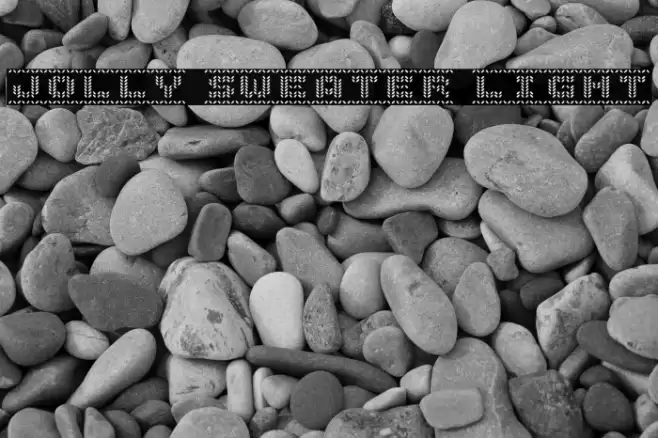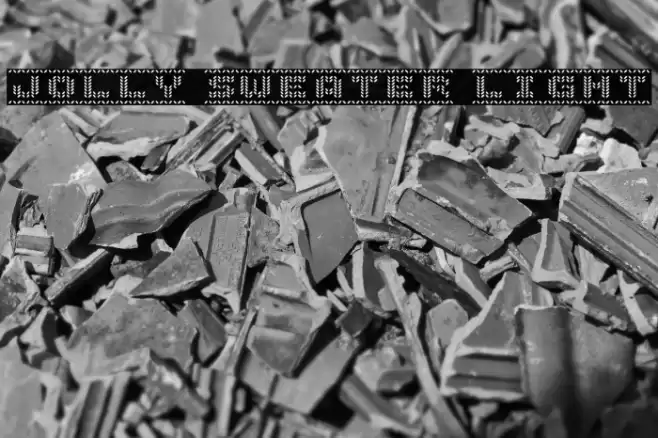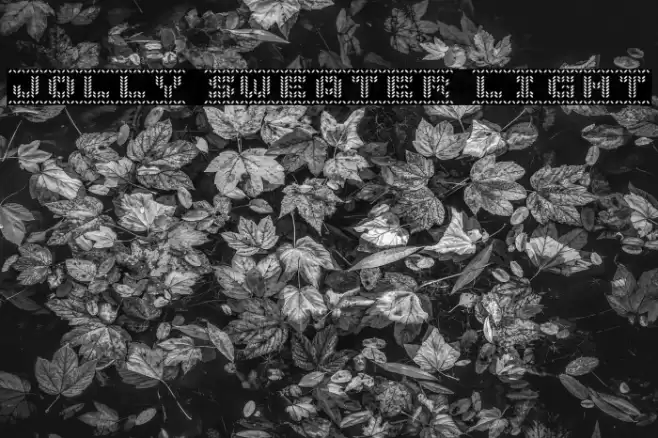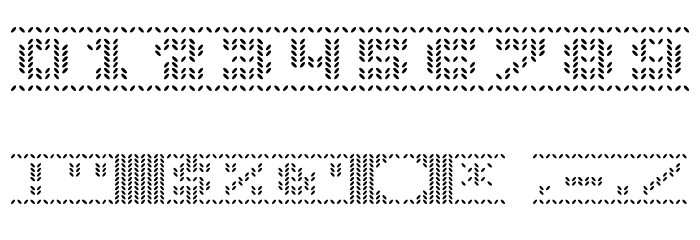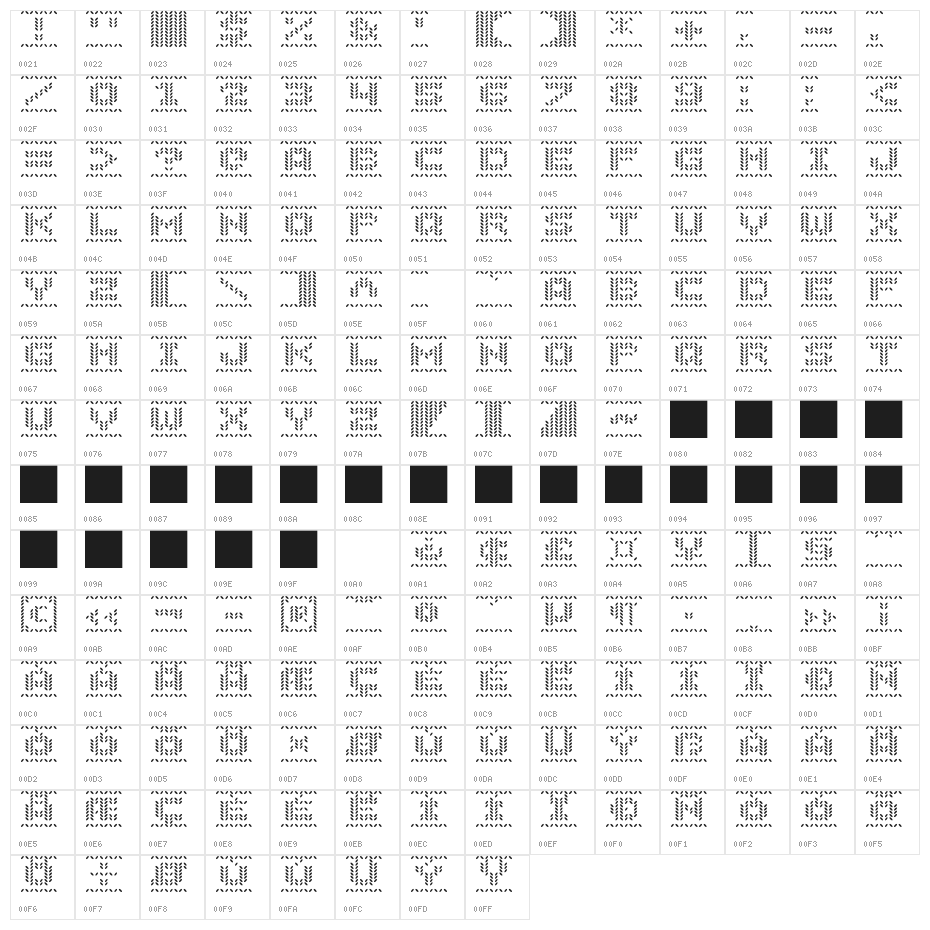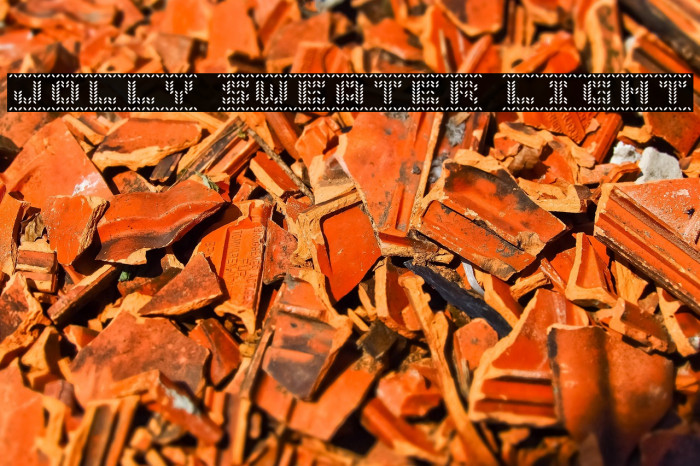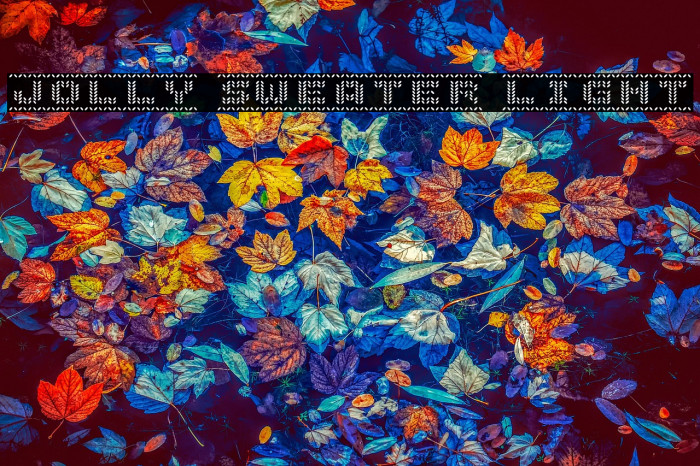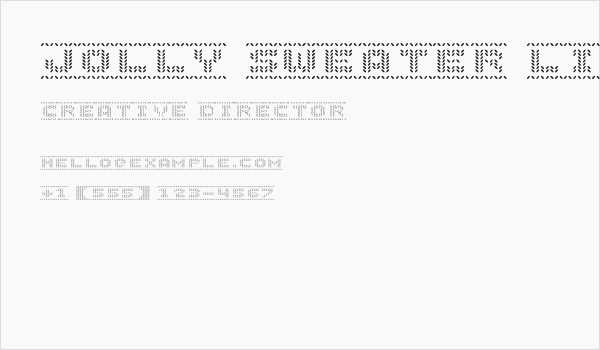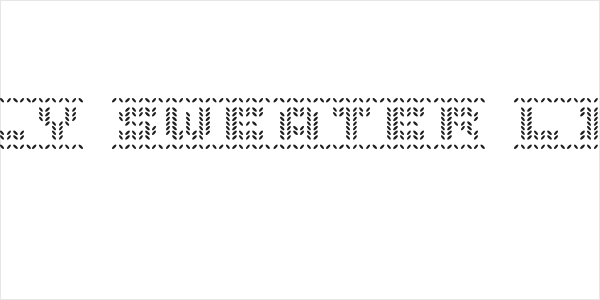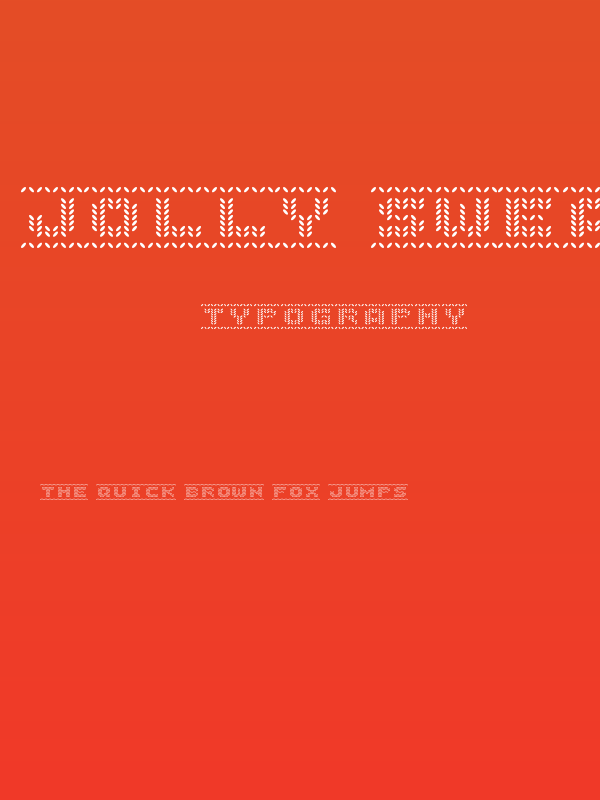
Jolly Sweater Light Font
Jolly Sweater Light Description
This font features a unique, decorative style that mimics the appearance of a knitted pattern, reminiscent of a cozy sweater. Each character is constructed with a series of diagonal lines and dots, creating a textured effect that adds warmth and charm. The uppercase and lowercase letters maintain a consistent design, with a geometric and blocky structure that ensures readability while maintaining the playful theme. Numbers and special characters are also included, following the same knitted motif, making the font versatile for various applications. The overall appearance is both festive and inviting, ideal for seasonal designs or projects that aim to evoke a sense of comfort and nostalgia.
A decorative font with a knitted pattern, perfect for festive and cozy designs from Uncategorized fonts.
- Proposed Projects: Ideal for holiday cards, festive invitations, winter-themed posters, and cozy branding projects.
- Overall Style: Decorative
- Use Case: Headlines, Logos, Decorative text